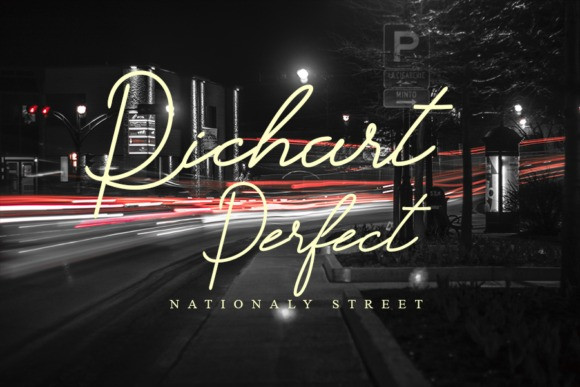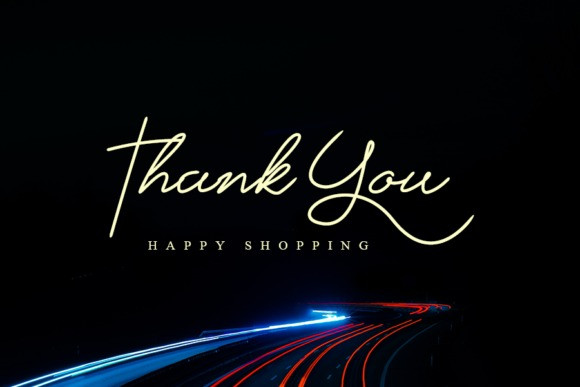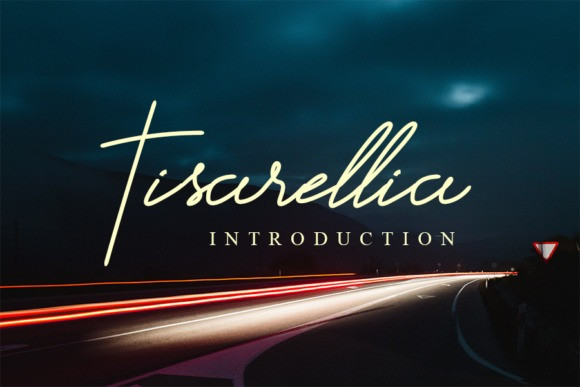
Secret Admirer Script Font
Secret admirer is a beautiful script font that is perfect for your summer wedding design. use for printing, greeting cards, silhouette, Cricut crafts, Tshirt design, and many more. it supports multilingual with ANSI encoding.